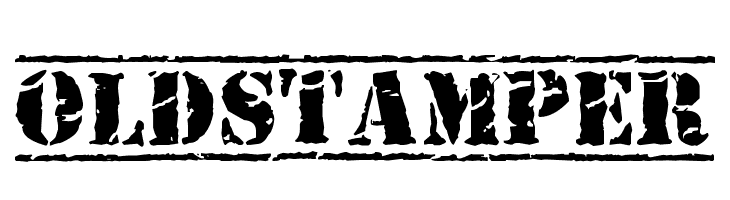
A playful, cartoon-inspired font with bold, hand-drawn characters.
A bold, cartoonish font with a playful, hand-drawn style.
A classic serif font with high contrast and strong, elegant serifs.
A bold, graffiti-inspired font with dynamic, angular characters.
A bold, distressed font with a vintage, stamped appearance.
A bold, distressed font with a vintage, industrial style.
A bold, classic serif font with strong, authoritative characters.
A bold, energetic script font with a hand-drawn, dynamic style.